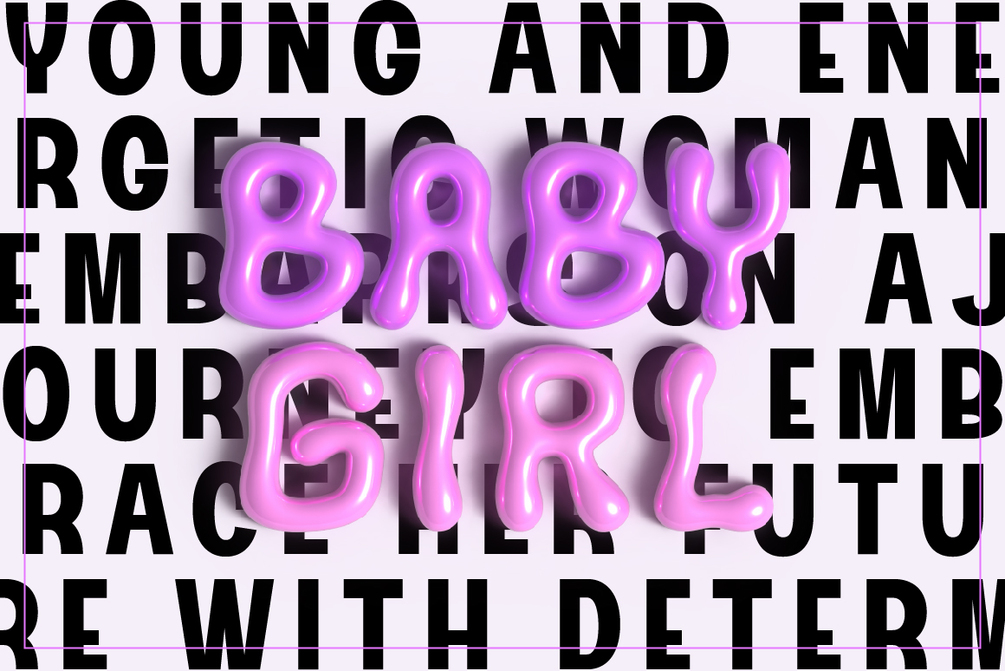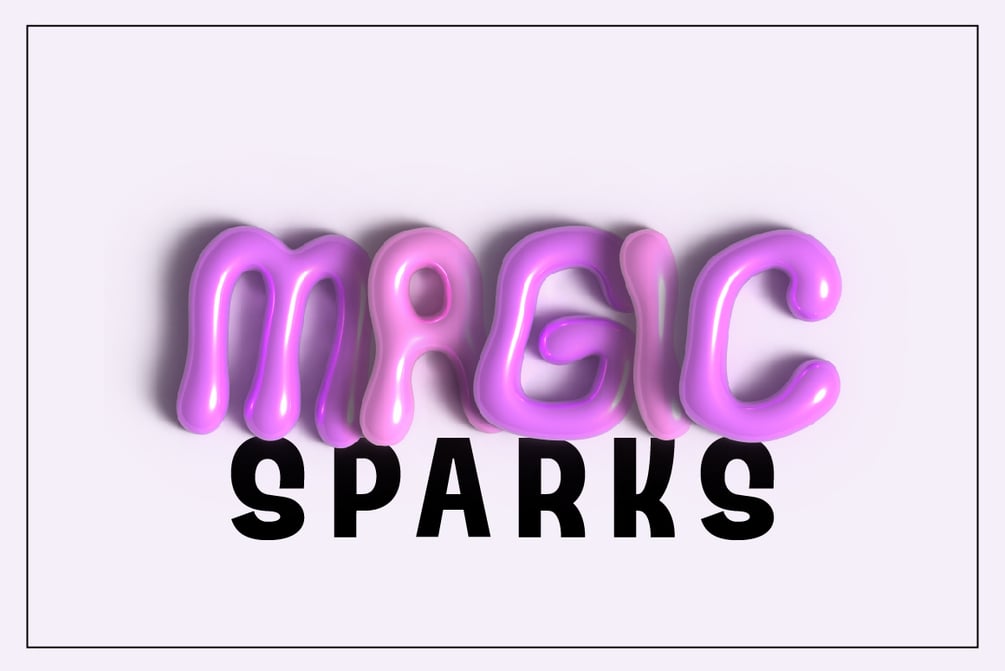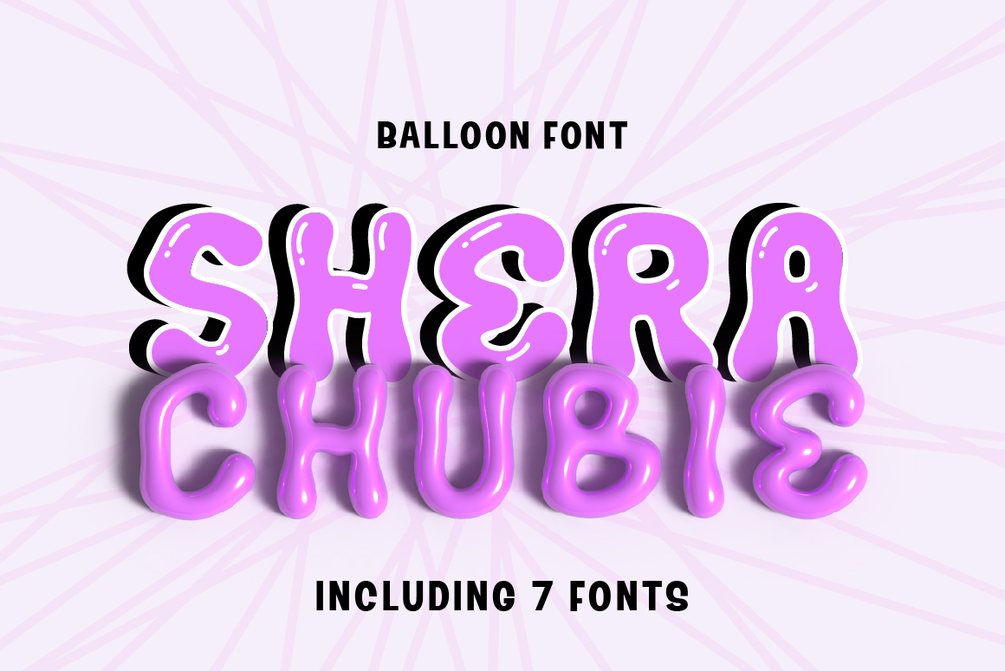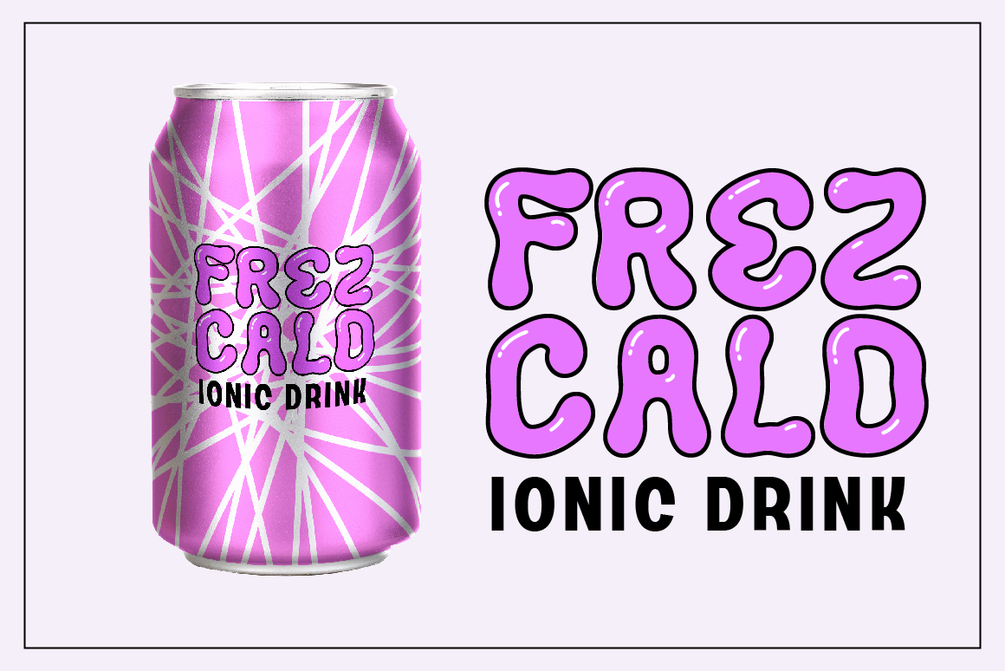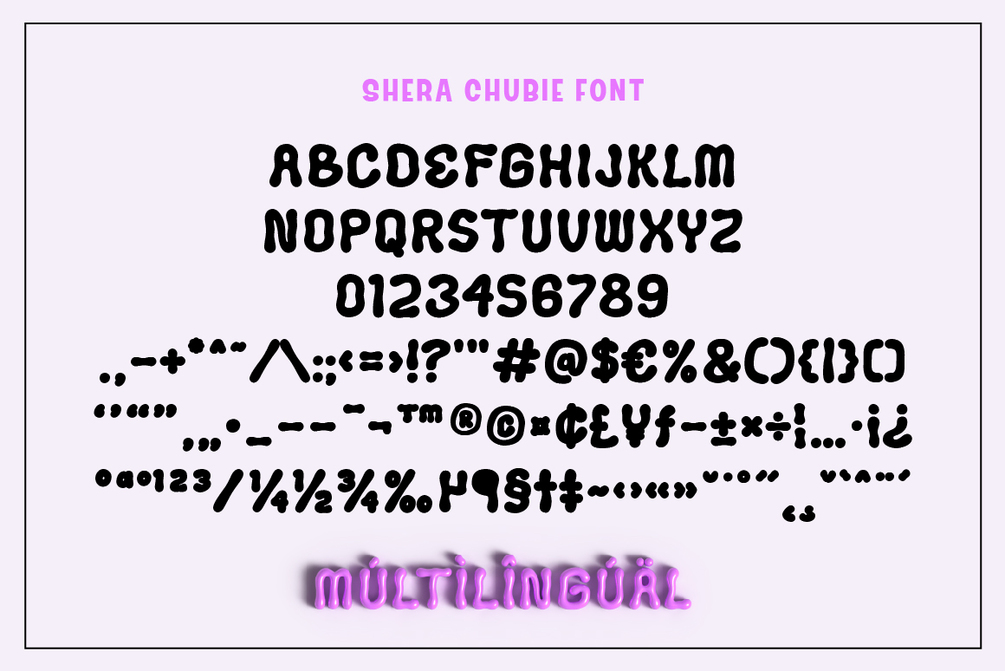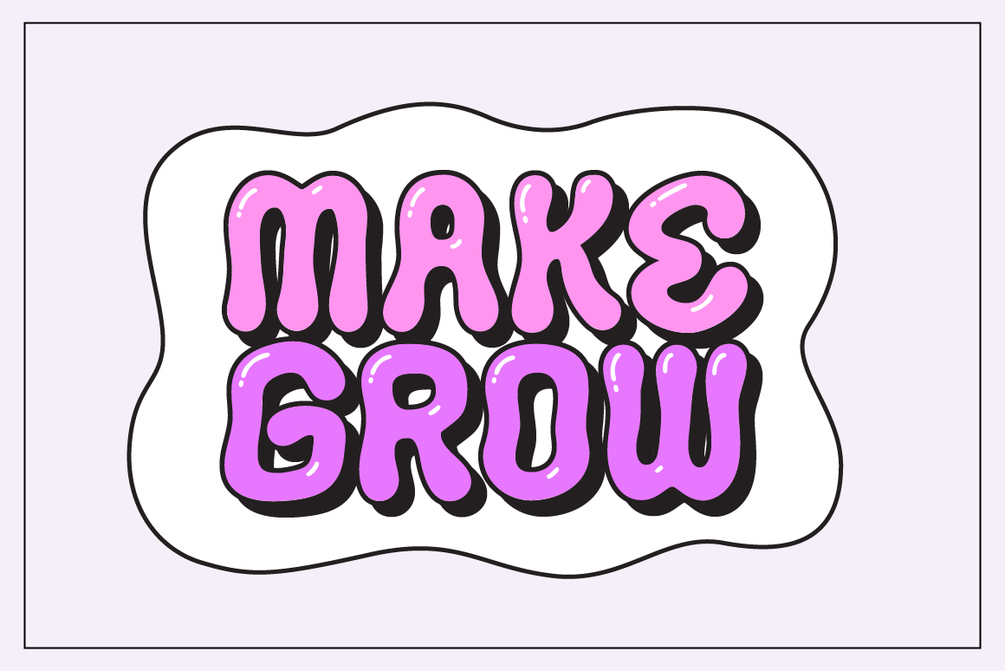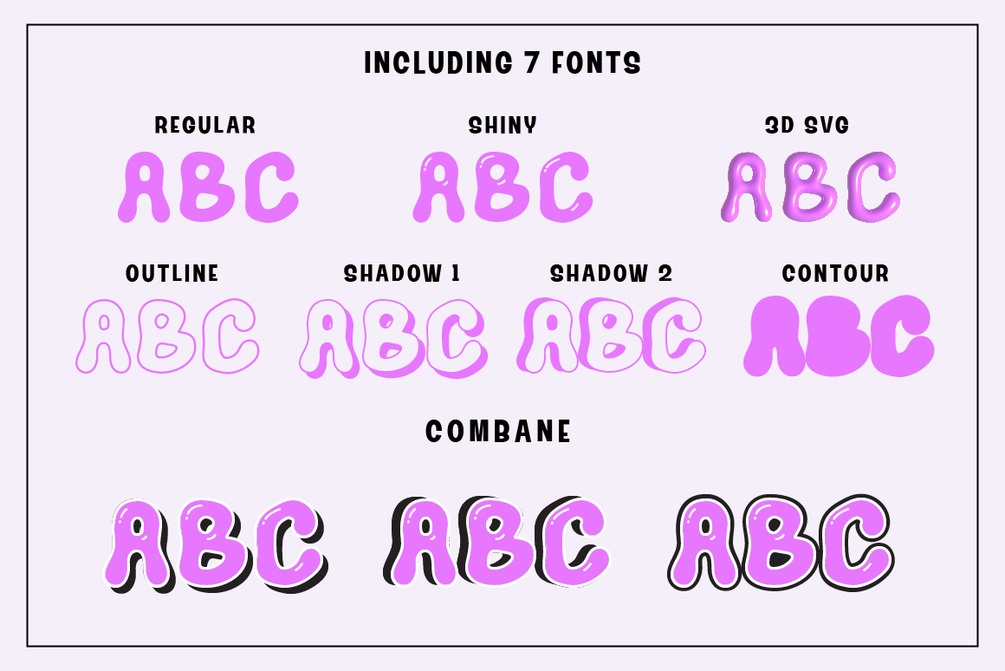
Shera Chubbie
Shera Chubbie is an adorable balloon font with a lively appearance that will fill your design with cheerfulness! Shera Chubbie is suitable for various design themes that require a cheerful and standout impression.